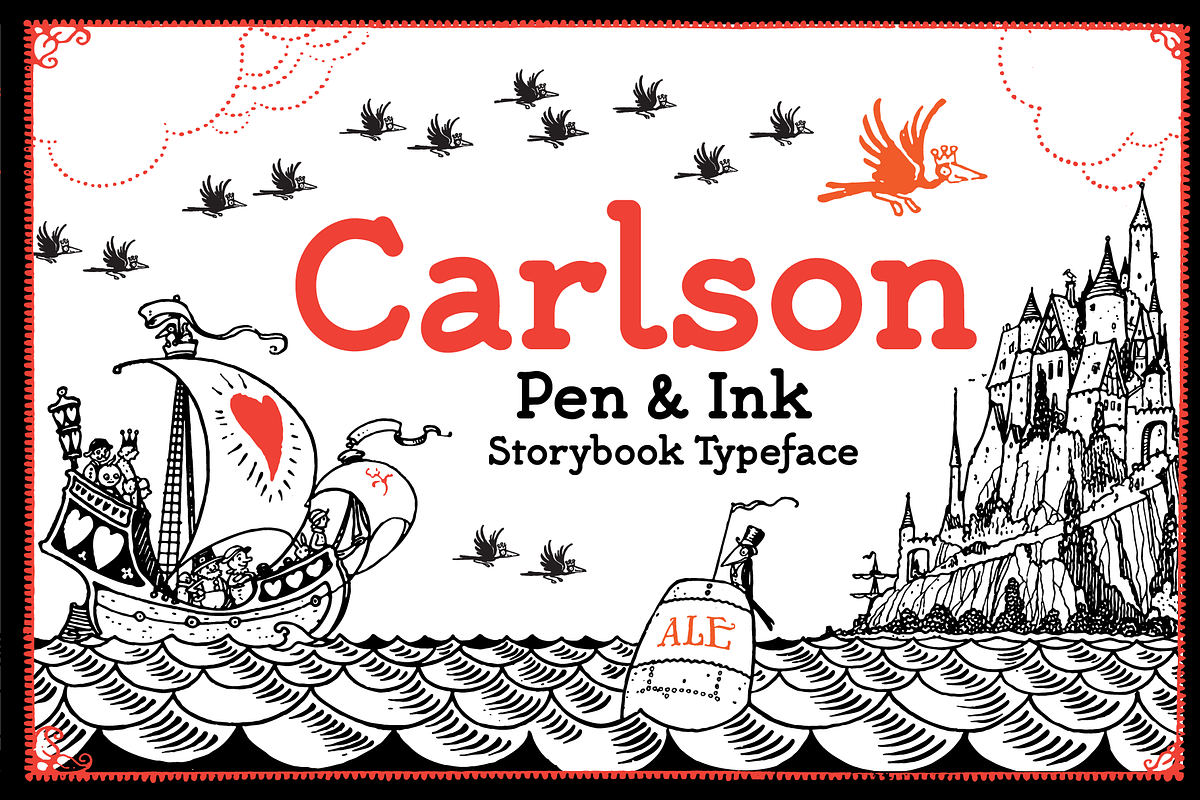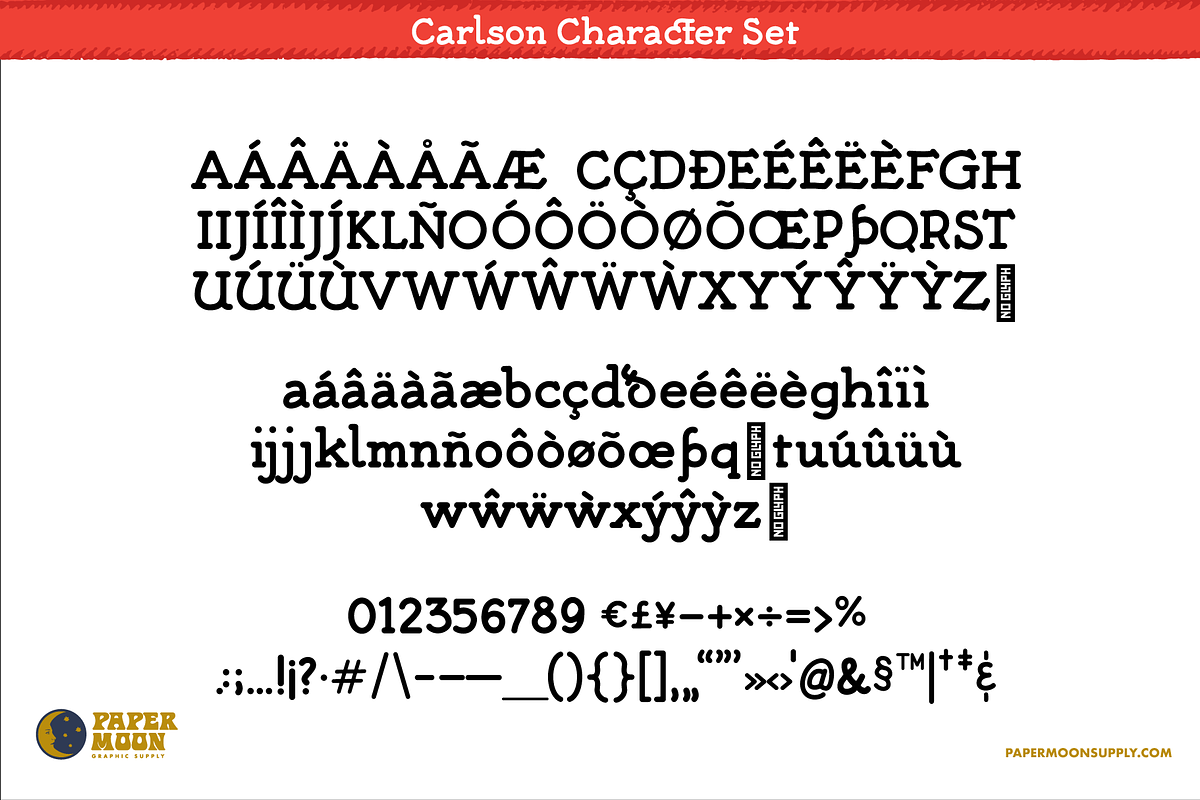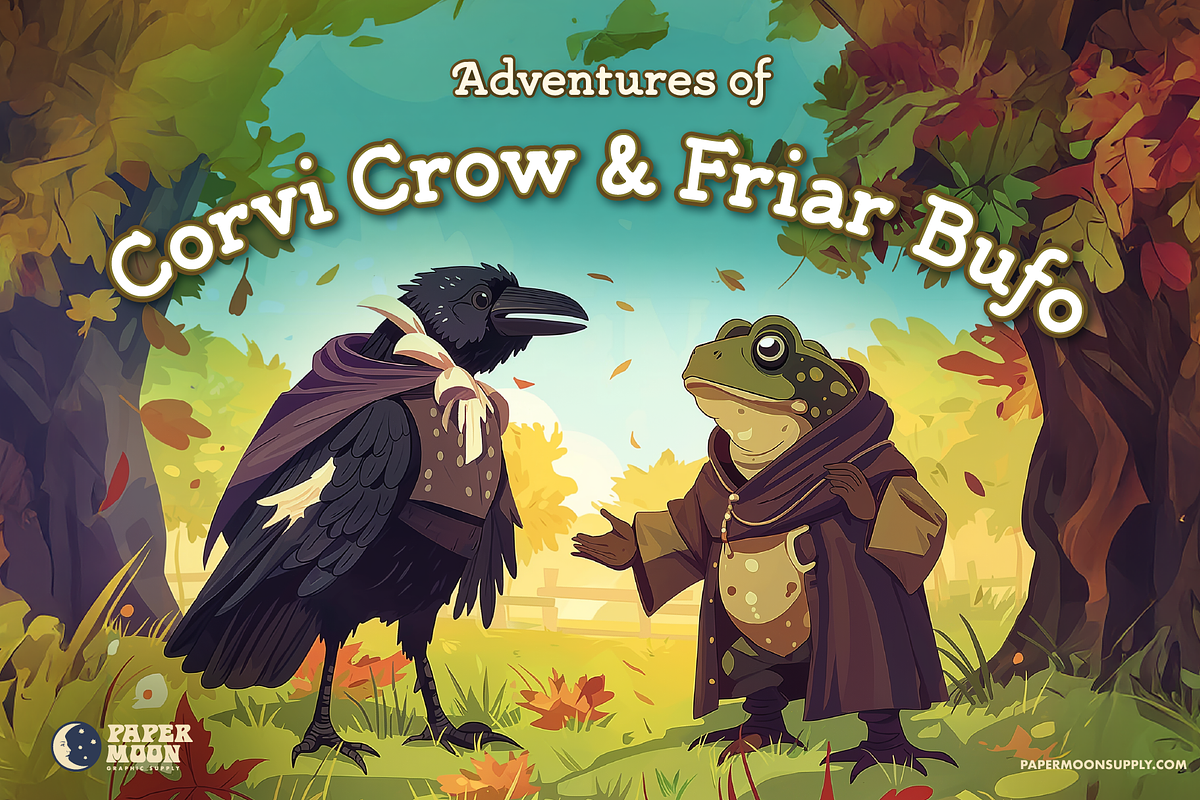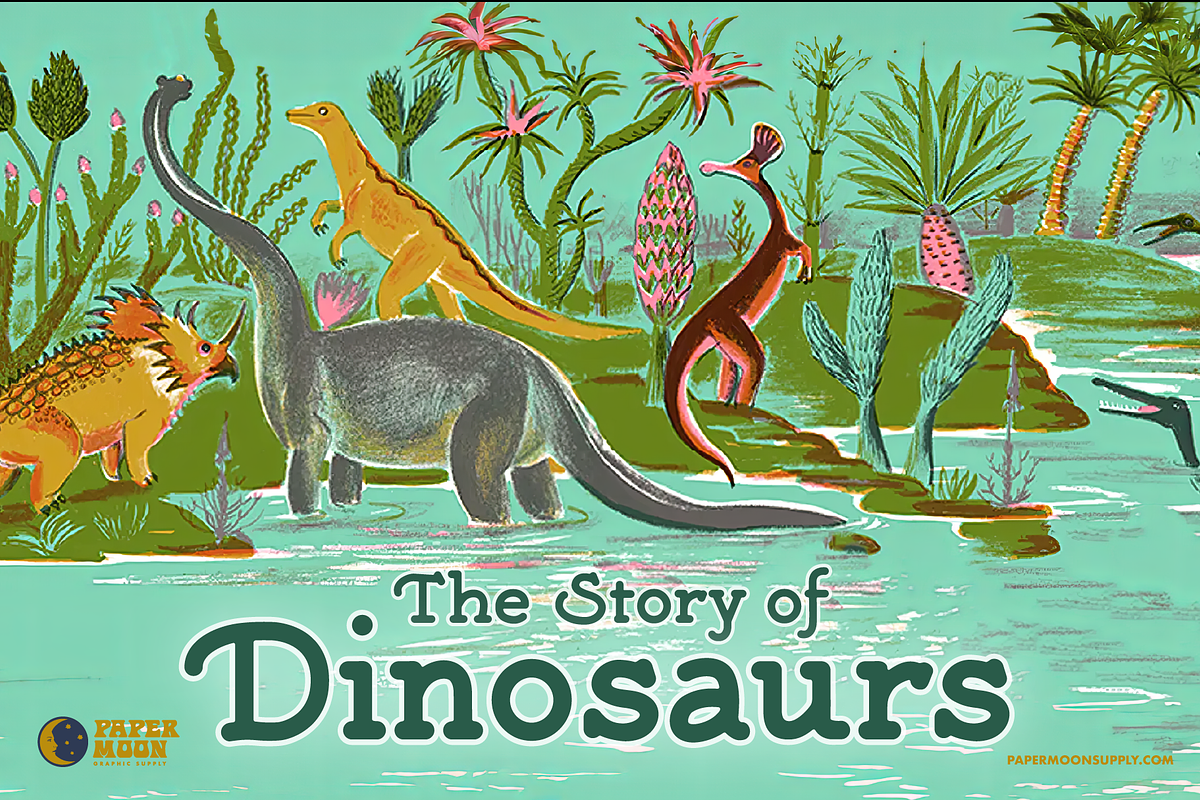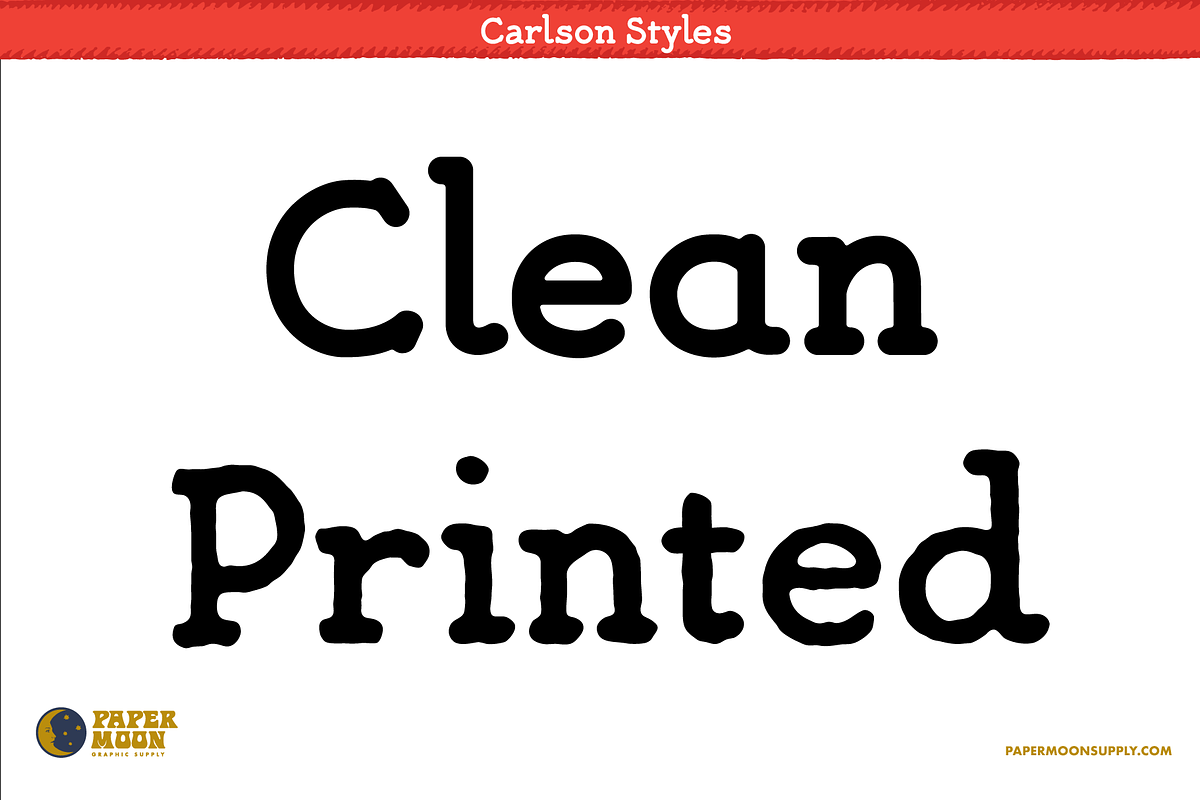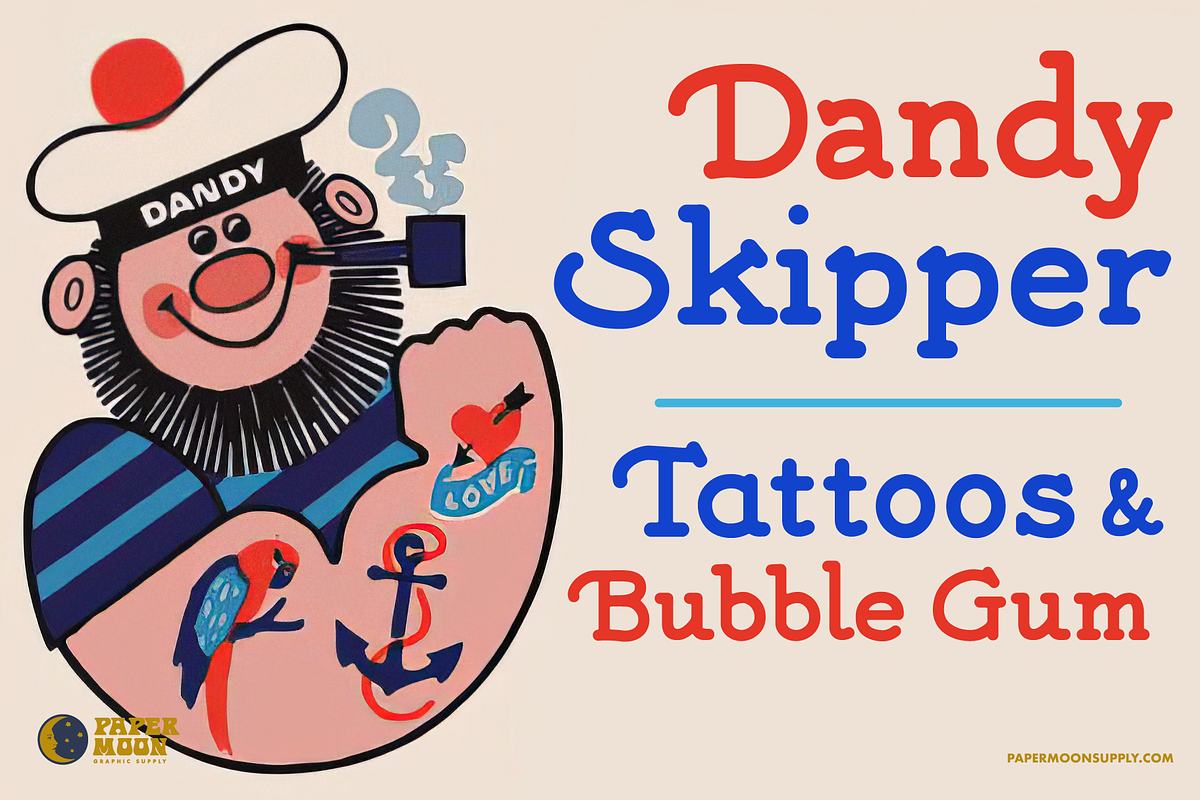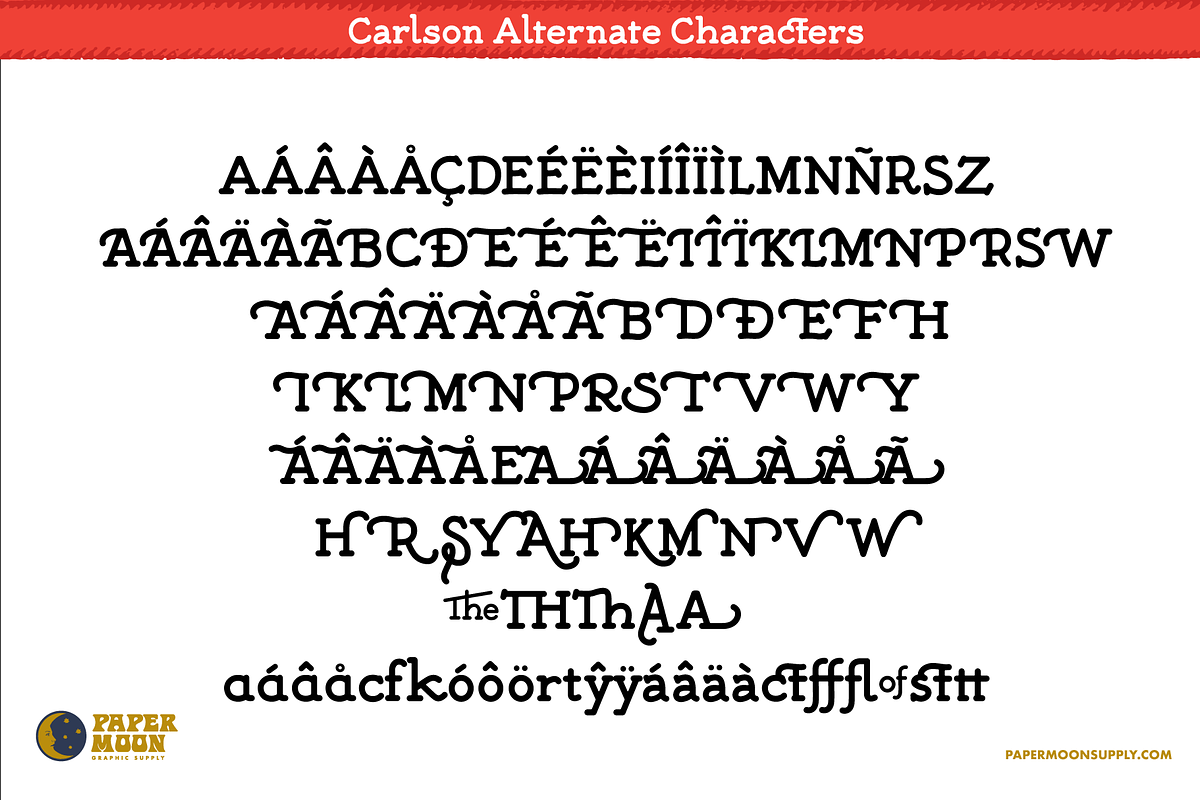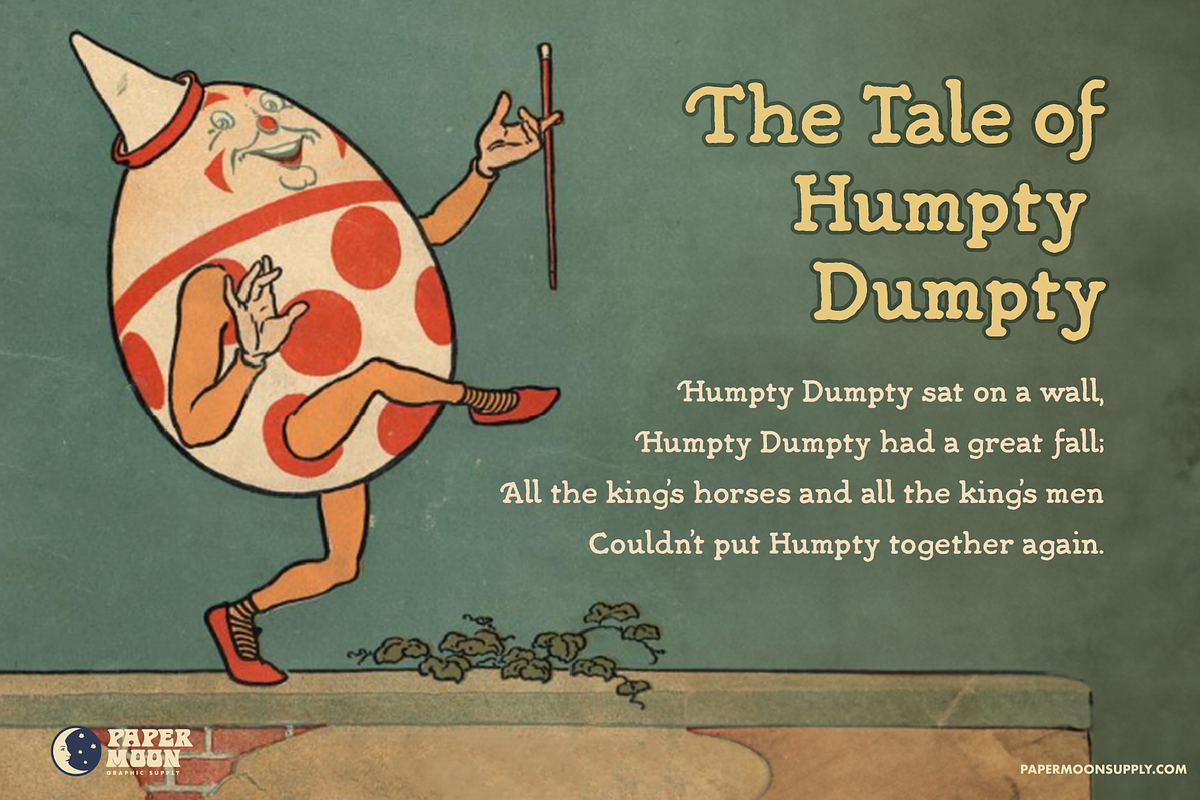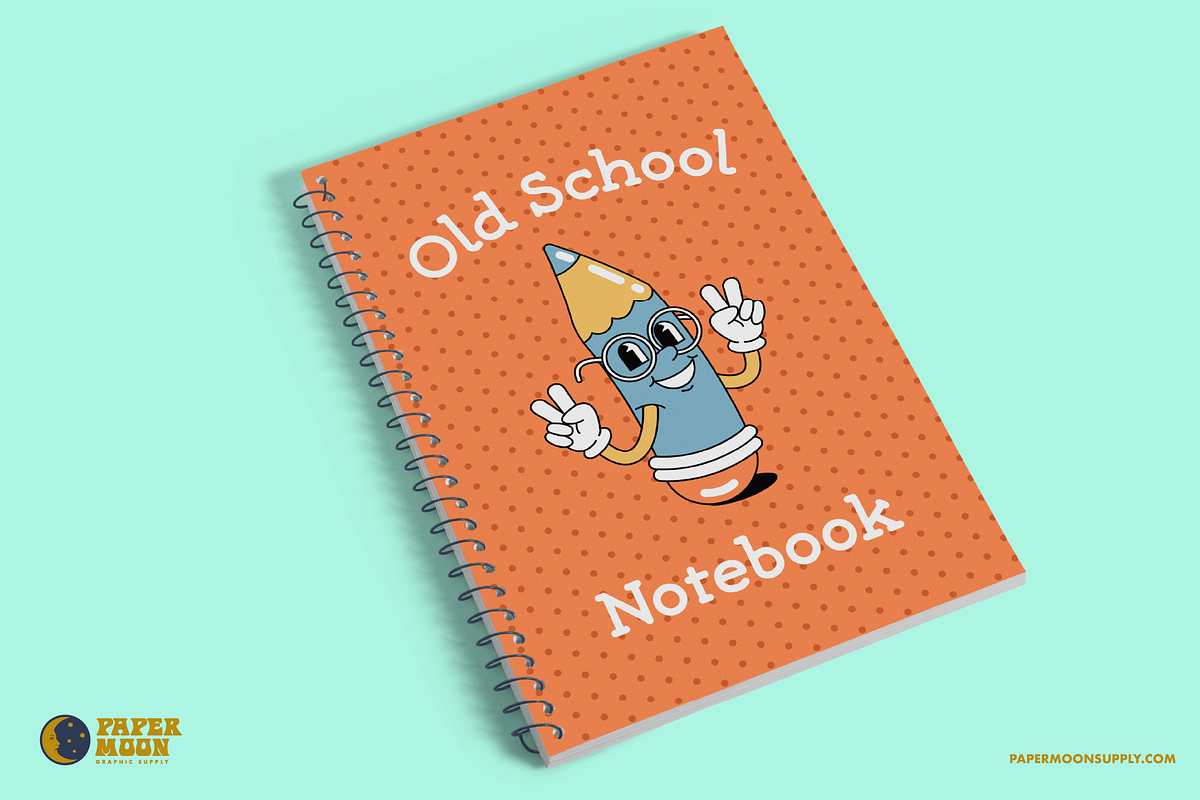
Carlson Monoline Pen & Ink Font
PM Carlson
A new hand-drawn single-stroke pen and ink font inspired by vintage hand-lettering of George Carlson from his advertising, storybooks, and comics lettering from the 1920s and 1930s.
- Over 50 stylistic alternates
- Contextual alternates to avoid consecutive letter repeats
- Complete alphabet, number, and punctuation sets
PM Carlson was developed by award-winning illustrator and designer Scott Banks.